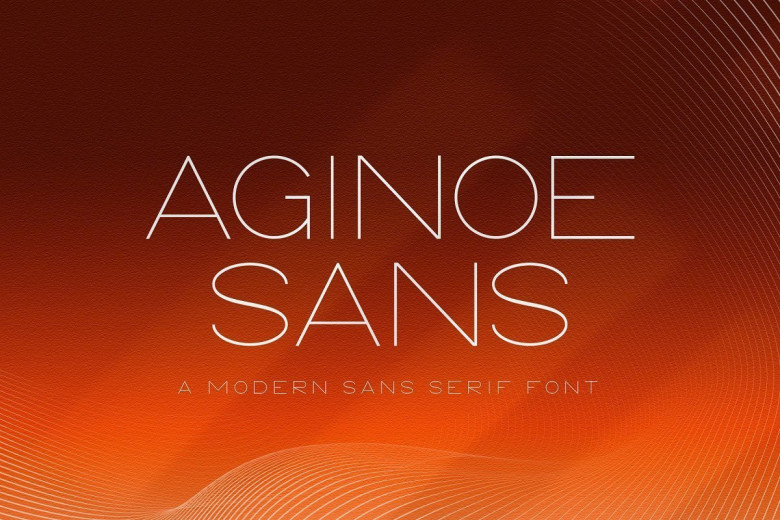
Aginoe Modern Sans Font Family
Introducing Aginoe – Modern Sans Typeface, Aginoe Sans is a gorgeously unique sans-serif font that combines perfect readability with a clean and modernist lettering design. The font is also available in a regular, italic, bold italic and bold version.